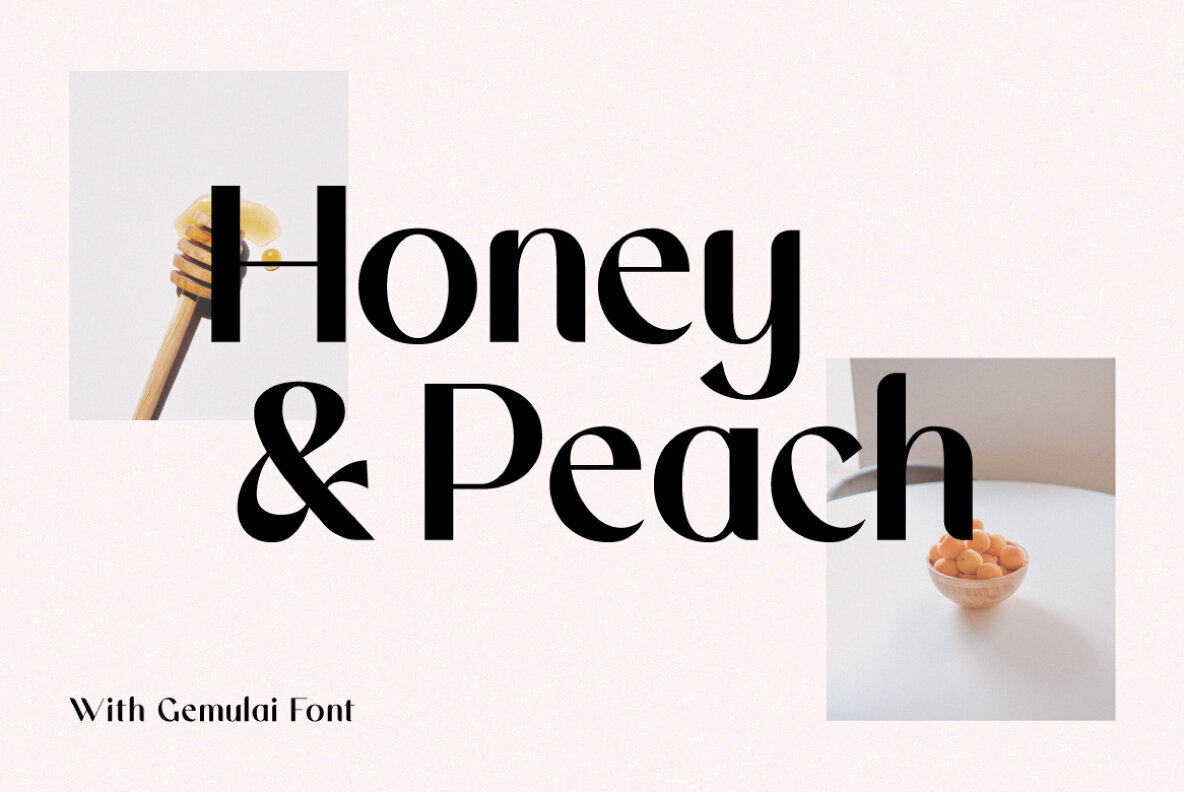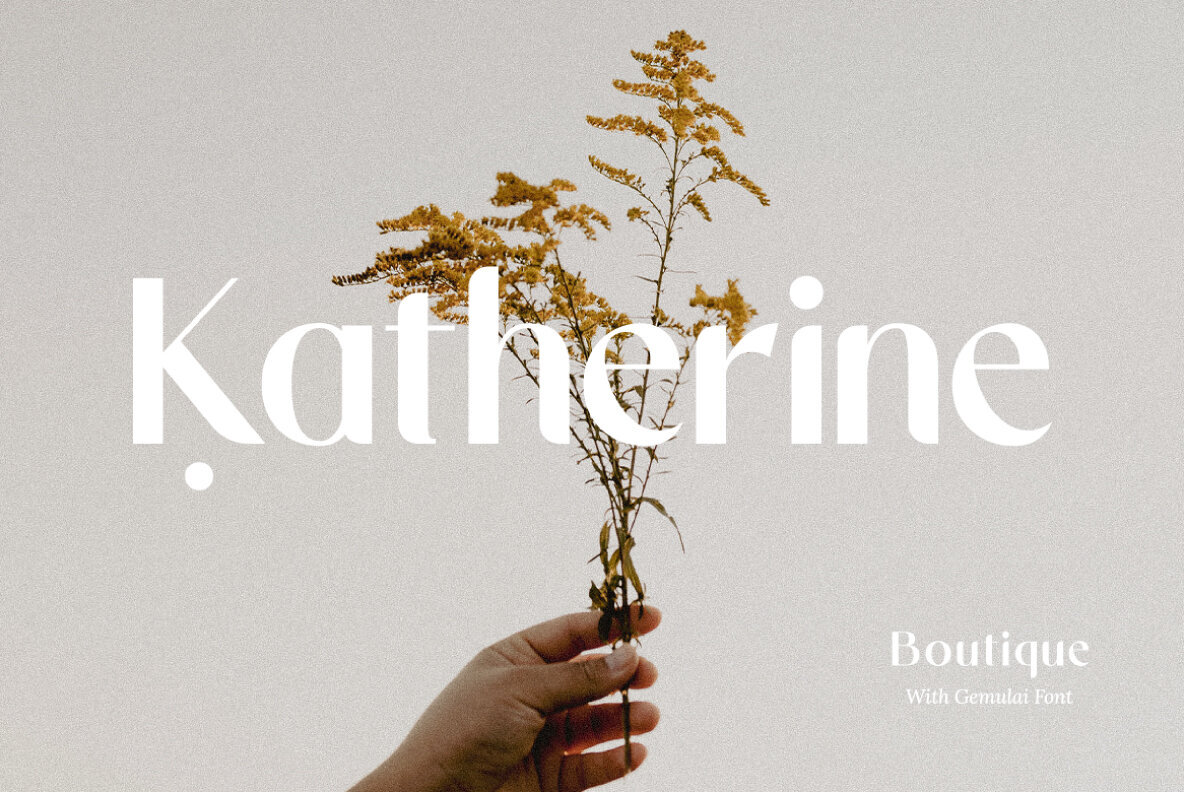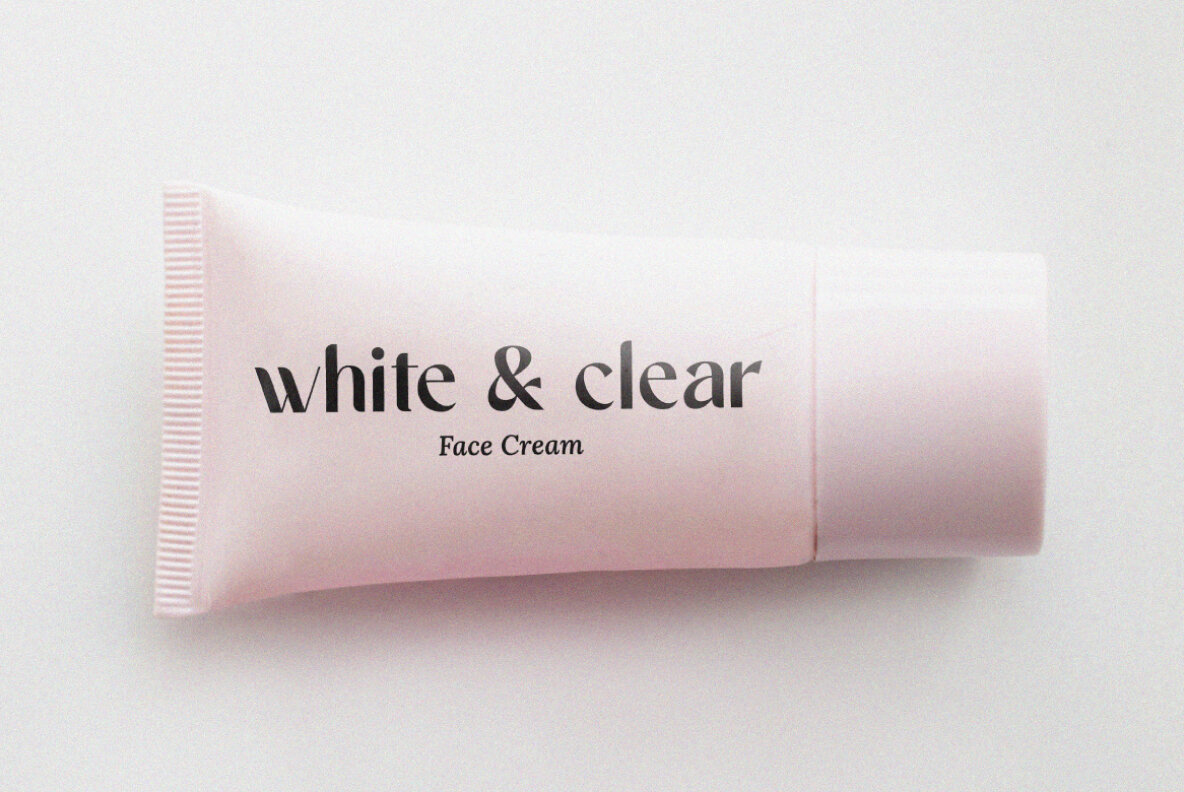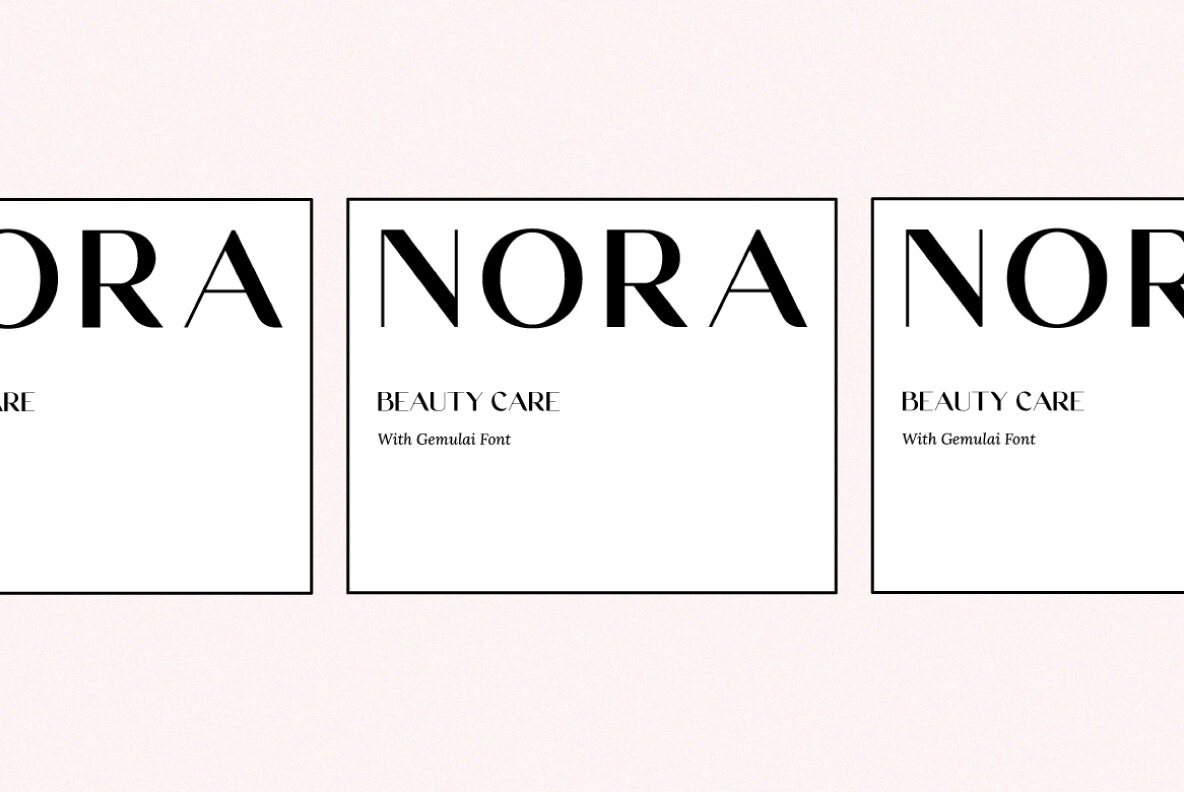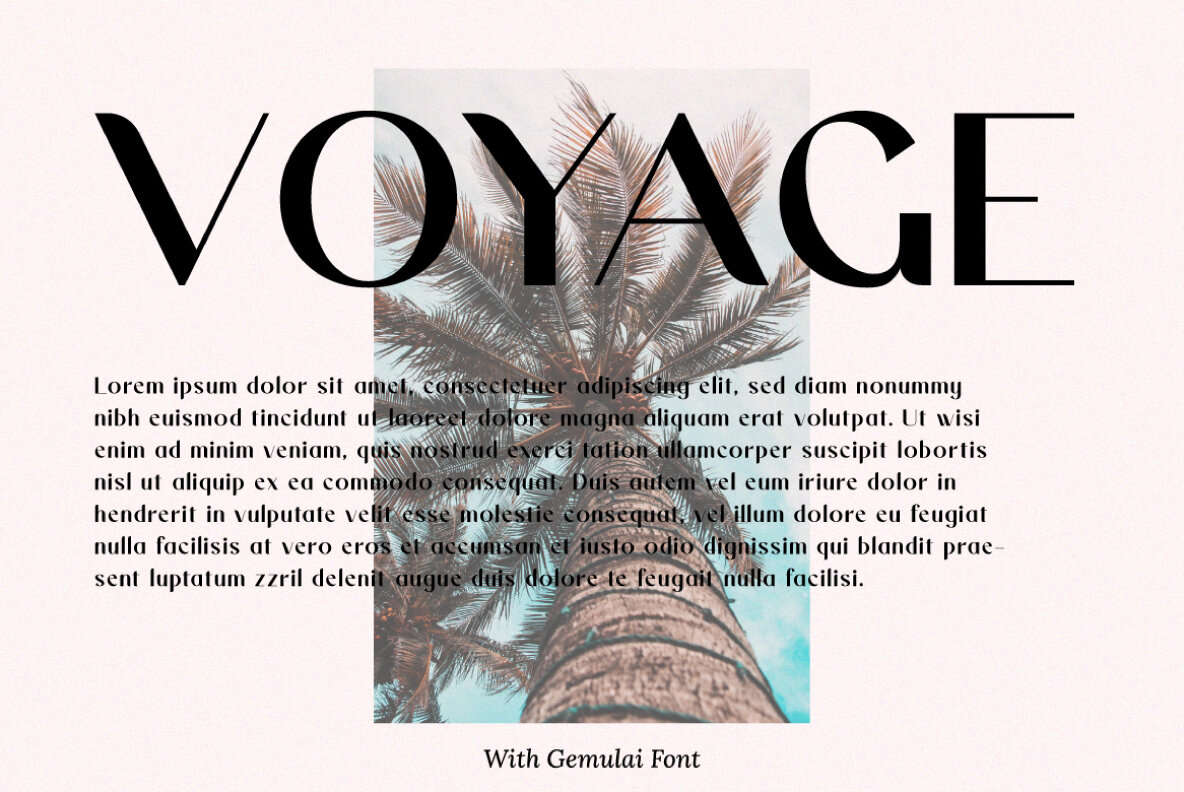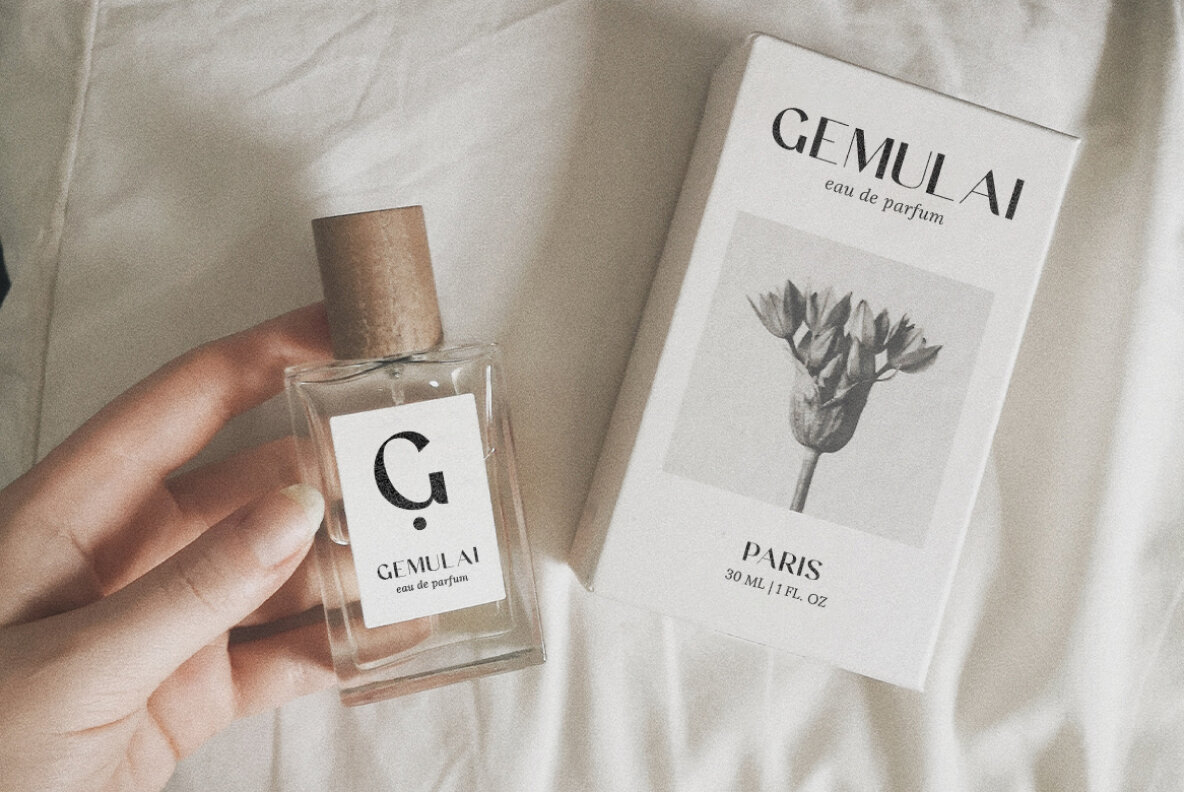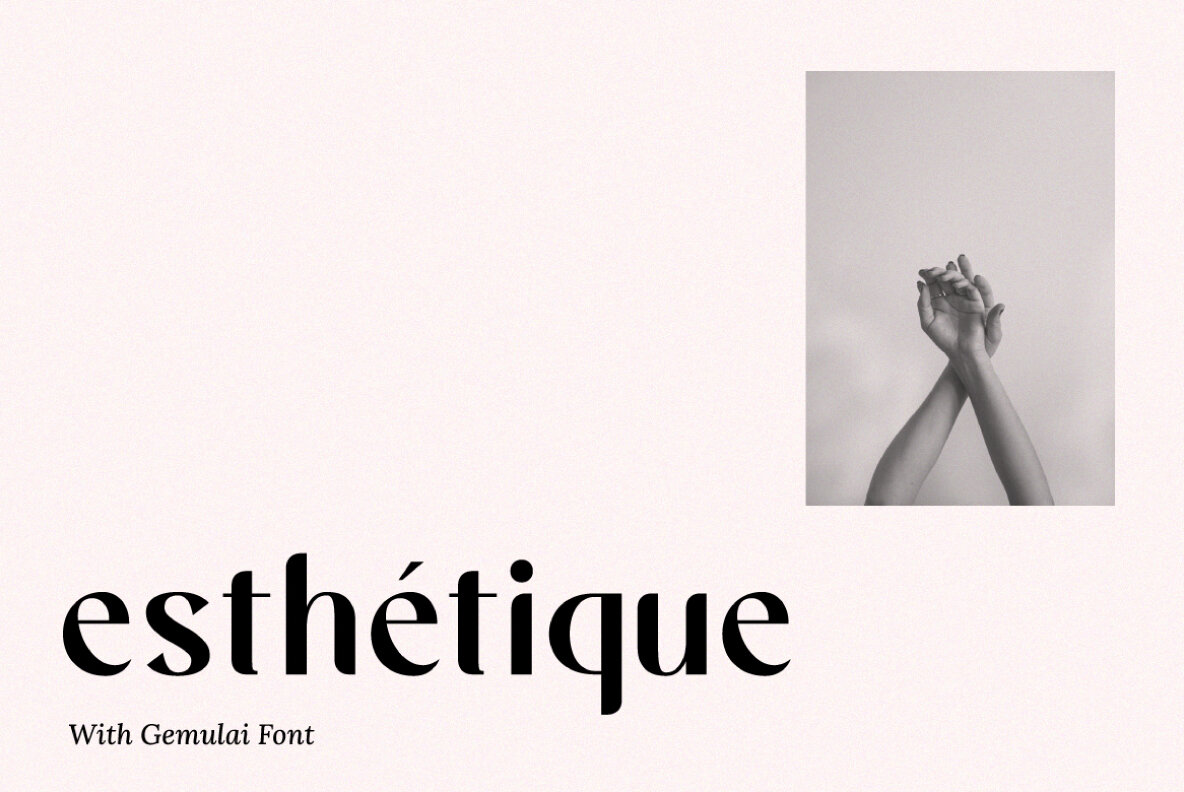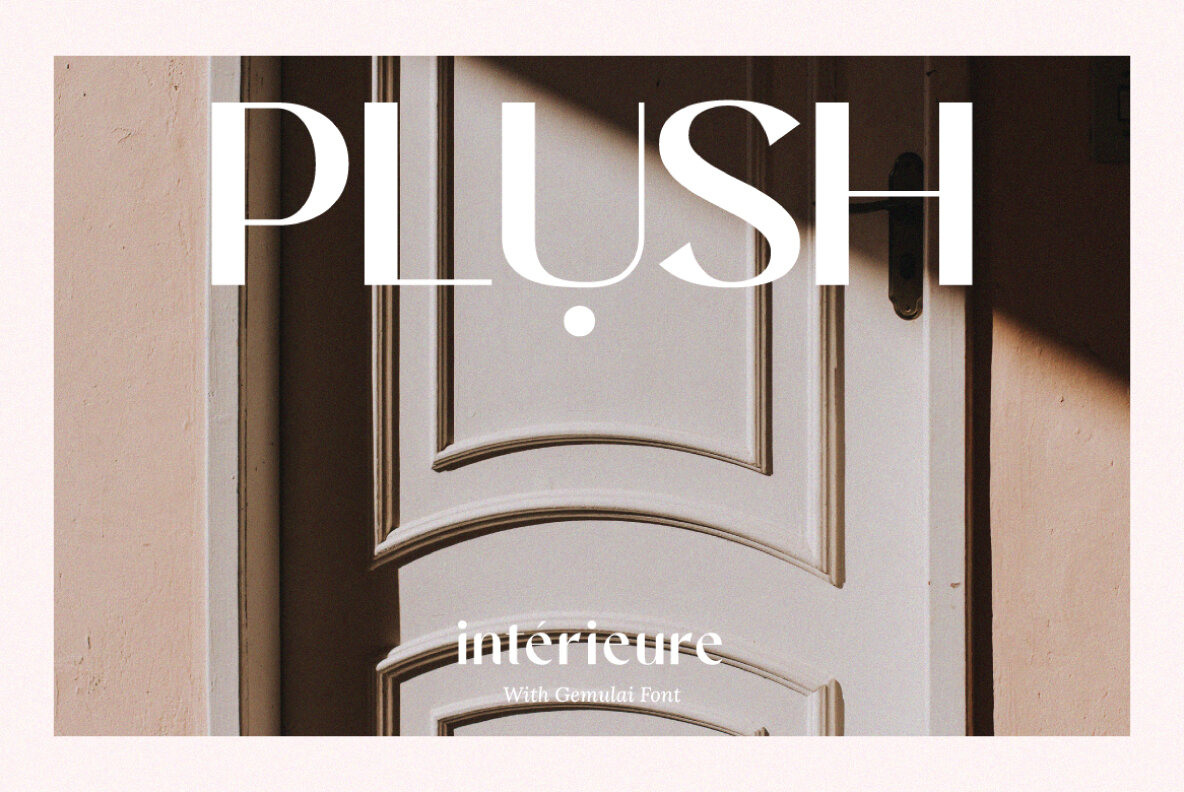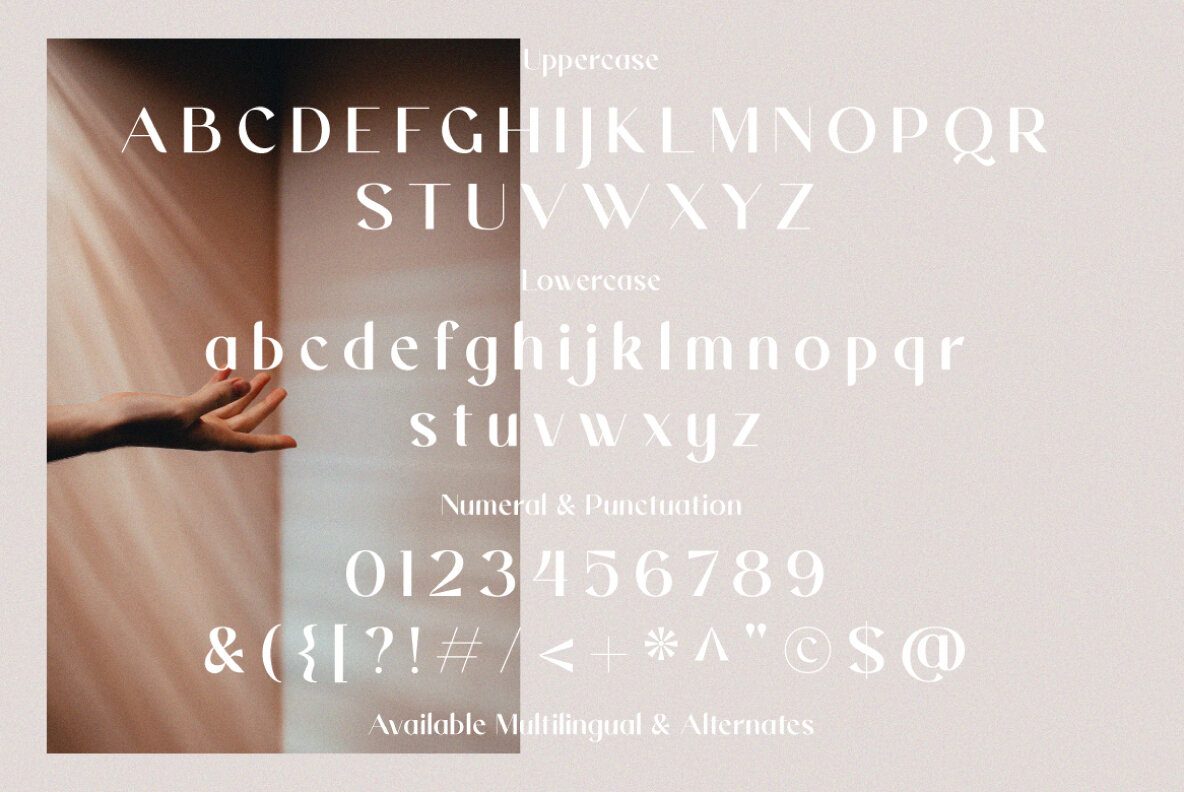
Gemulai Font
Gemulai
Gemulai is a modern sans serif font designed to enhance your projects with a clean and contemporary appearance. Its simplicity makes it ideal for branding, logos, covers, and various creative designs. With Gemulai, you can craft visually engaging content that stands out in a minimalist fashion.
This font includes comprehensive features such as uppercase, lowercase, numeral, punctuation, ligatures, alternates, and multilingual support. Gemulai supports a wide range of languages including Afrikaans, Danish, Finnish, German, Italian, Spanish, and many more, making it a versatile choice for global projects. Whether you're designing for print or digital formats, Gemulai offers the functionality and aesthetic appeal to meet your needs.